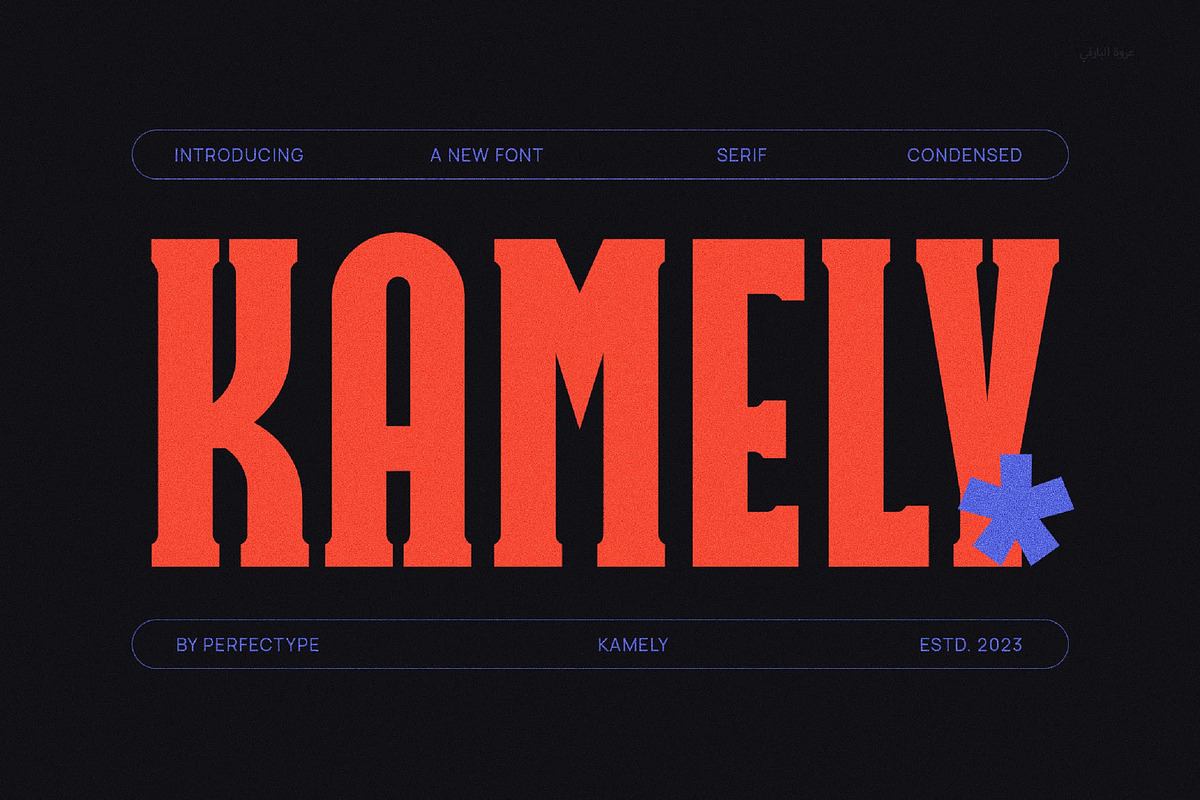
Kamely Modern Futuristic Slab Serif Font Free Download is a cutting-edge typeface that blends classic slab serifs with a modern, futuristic twist. Its bold, geometric shapes and strong presence make it perfect for tech companies, innovative branding, posters, and futuristic designs. Whether you're designing a logo, a sleek website, or a cutting-edge marketing campaign, this font adds strength and modernity to your project. The Kamely Modern Futuristic Slab Serif Font Free Download allows you to test its dynamic design in personal projects before purchasing a commercial license. Elevate your designs with this powerful, high-tech font that balances both timeless slab serif style and futuristic innovation.